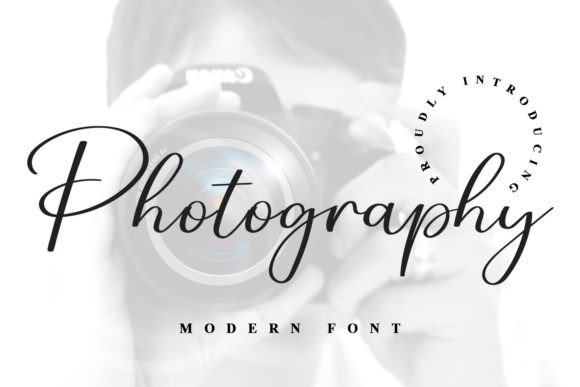
Introducing Photography Font, the ultimate choice for those seeking a font that truly speaks to the soul of their visual artistry. Crafted with precision by the talented ABBAsalam, this script font is more than just a tool for communication – it is an expression of your creative journey.
With its clean lines and modern aesthetic, Photography Font effortlessly enhances your photography branding, watermarking, and website design. It effortlessly captures the essence of your artistic vision, adding an extra touch of sophistication to your work.
Immerse yourself in the world of captivating typography as you explore the endless possibilities that Photography Font has to offer. Its versatility shines through, making it the perfect companion for any business website in need of a font that exudes professionalism and creativity.
Stand out from the crowd and leave a lasting impression on your audience with this font's remarkable visual impact. Its eye-catching design will effortlessly draw attention and make your content truly unforgettable. Let your words come alive and leave a lasting imprint on the minds of your viewers.
Photography Font is not just a font; it is a language that speaks volumes about your dedication to quality and attention to detail. Use it to create stunning logos, captivating headlines, and mesmerizing quotes that will resonate with your target audience on a profound level.
Unleash your creativity and unlock the true potential of your visuals with Photography Font. With its impeccable design and rich array of characters, you have the power to transform your ideas into reality. Let your imagination run wild and watch as your designs come to life in ways you never thought possible.
In a world where first impressions matter, Photography Font ensures that your message is delivered with impact. Leave a lasting mark on your viewers and immerse them in an unforgettable visual experience. Watch as your brand identity flourishes and your business reaches new heights.
Are you ready to take your photography branding, watermarking, and website design to the next level? Embrace the power of Photography Font and let your creativity soar. Elevate your visuals and captivate your audience with this exceptional script font that is sure to leave a lasting impression.